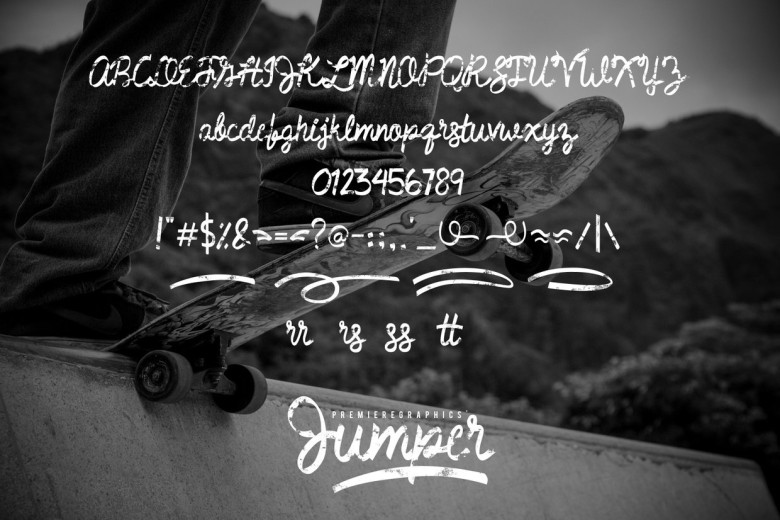
Jumper Handwritten Font
Start the new day with a font brush. I always try to introduce you to the most quality typography, you can have fun and use it. Introducing Jumper Handwritten Font! Jumper Handwritten designed by PremiereGraphics. Jumper is not your ordinary handwritten script font. It is textured to make its rough personality, fiercer and bolder. Jumper is very great for photography, blogs, logo and branding, book covers, bands, etc. – included in the font are underlines and beautifully made extra characters.